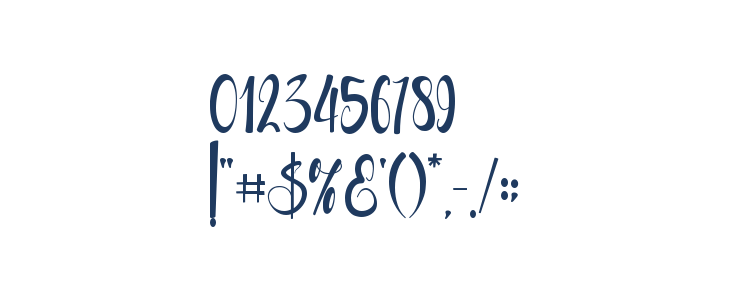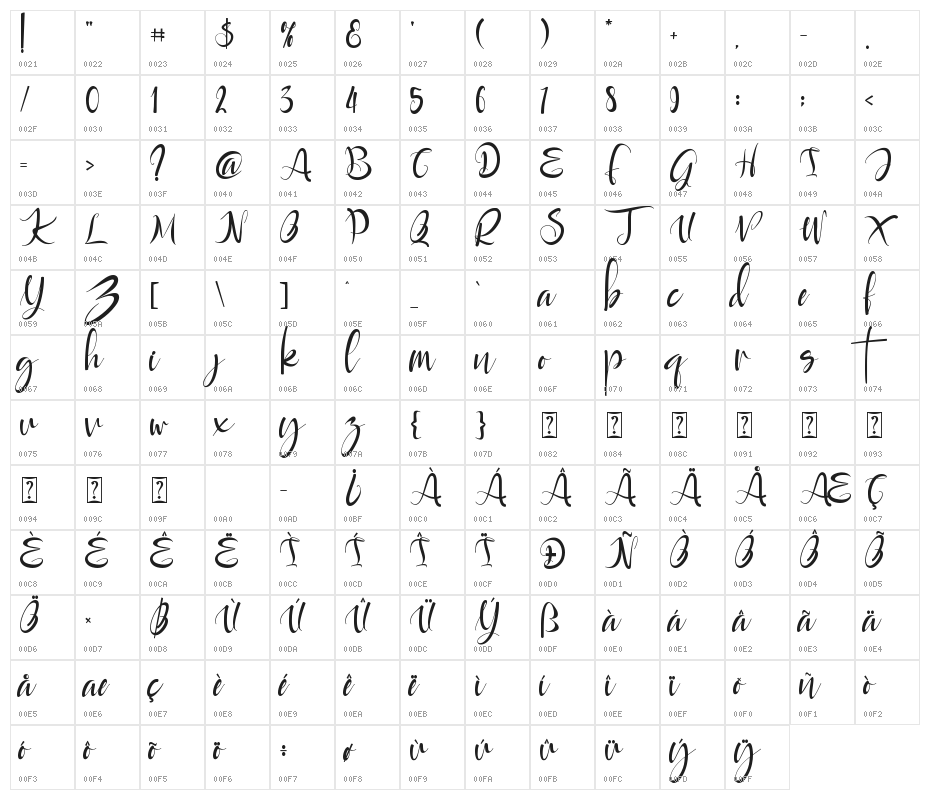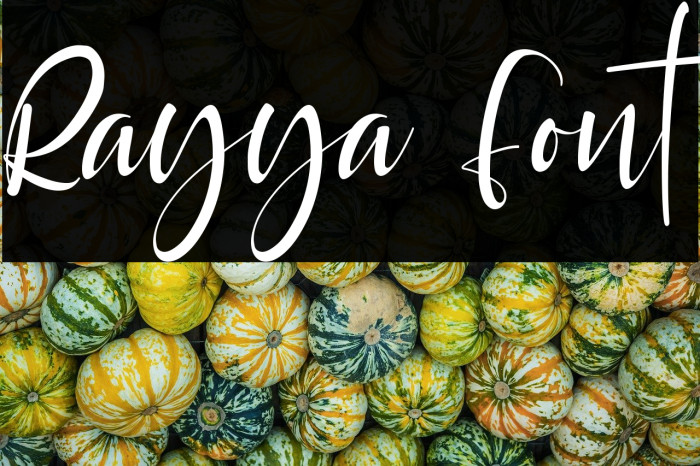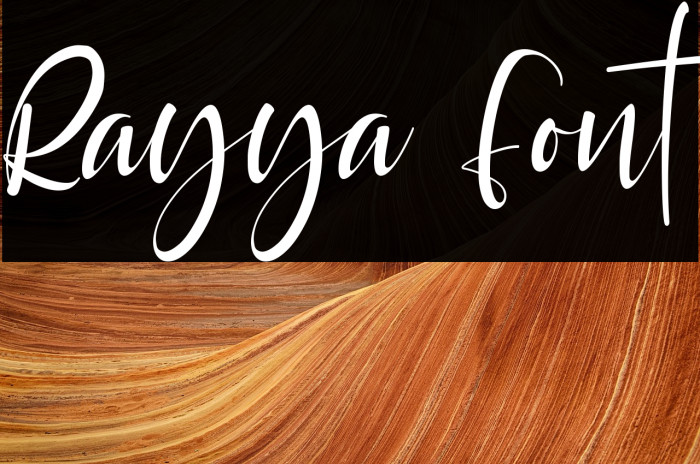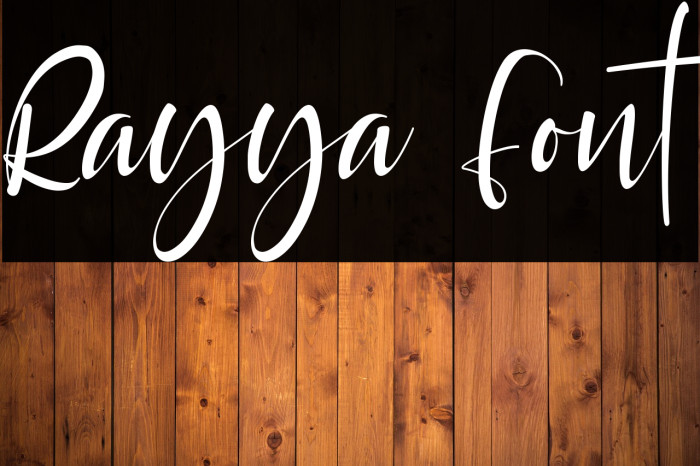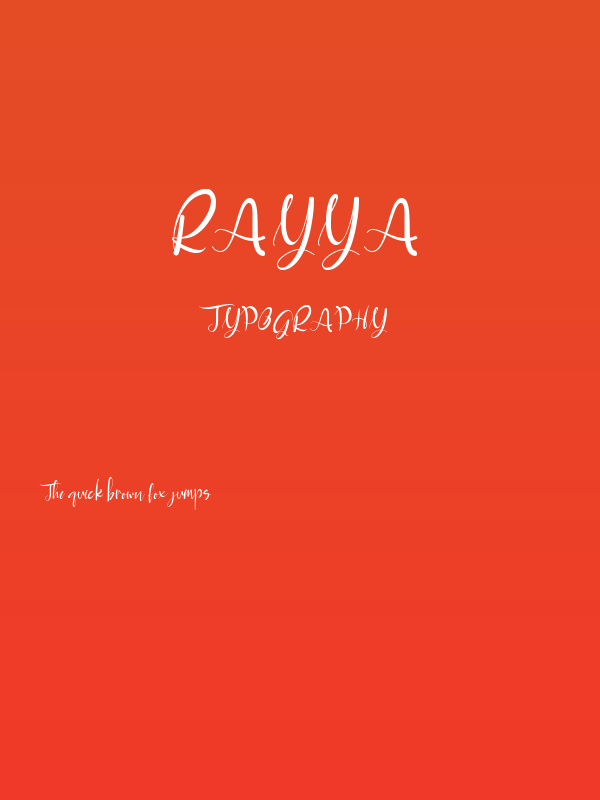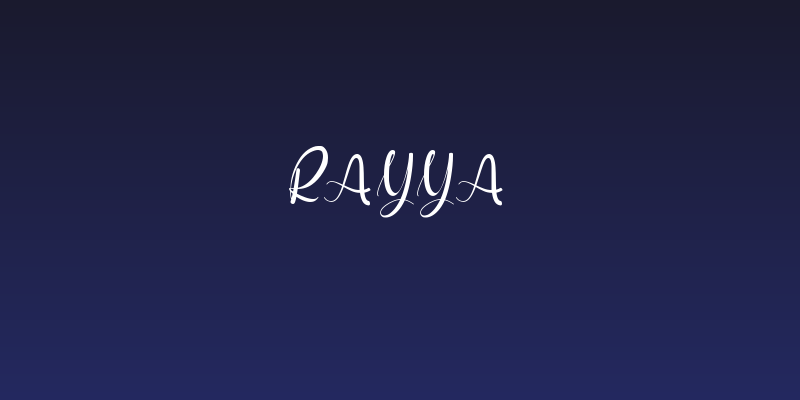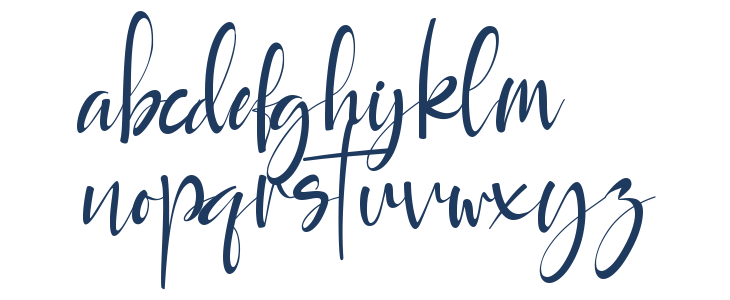
Rayya Font
This font exudes a lively and dynamic energy with its flowing, cursive style. The characters are elegantly crafted with a sense of motion, featuring sweeping curves and varying stroke widths that add a touch of sophistication. The uppercase letters are bold and expressive, while the lowercase letters maintain a graceful continuity. Numbers and special characters are designed to complement the overall aesthetic, making this font versatile for creative projects. Its artistic flair makes it suitable for invitations, branding, and decorative purposes.
| Use Case | Logos, Invitations, Decorative text |
| Proposed Projects | Ideal for wedding invitations, branding, logos, and artistic designs. |